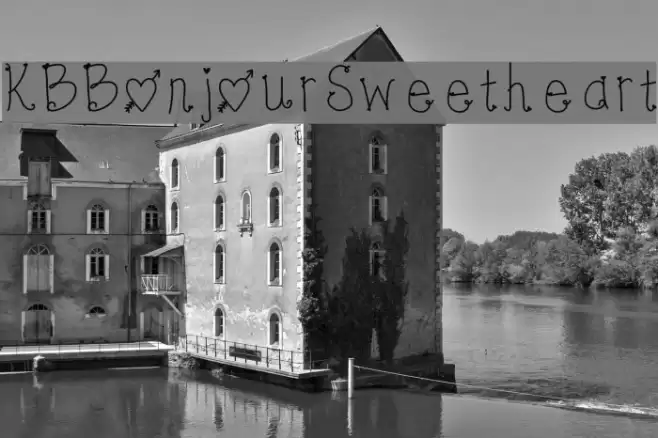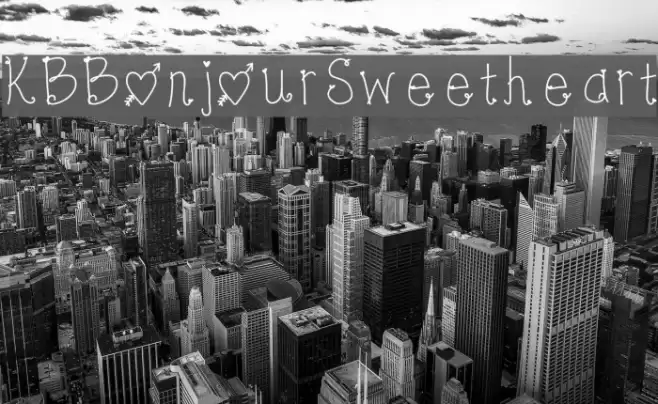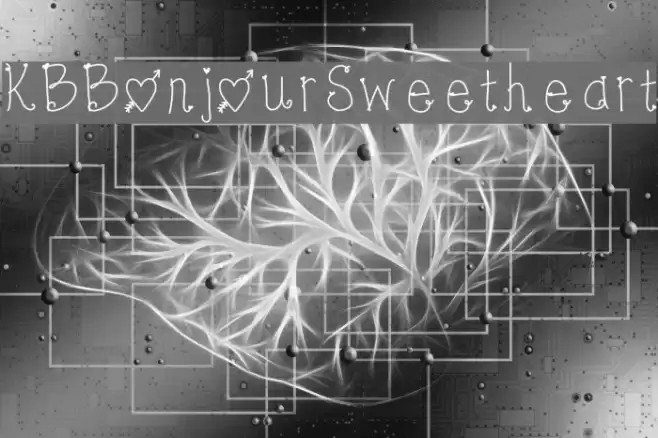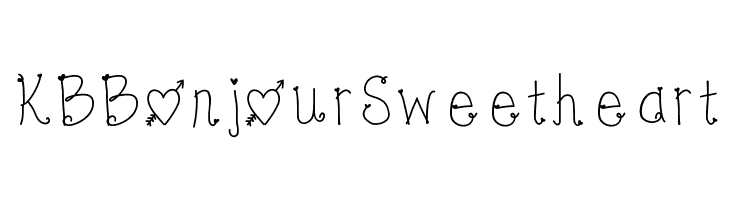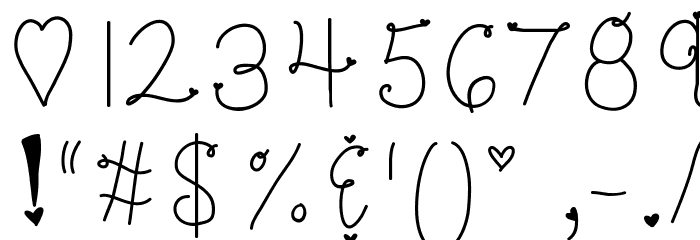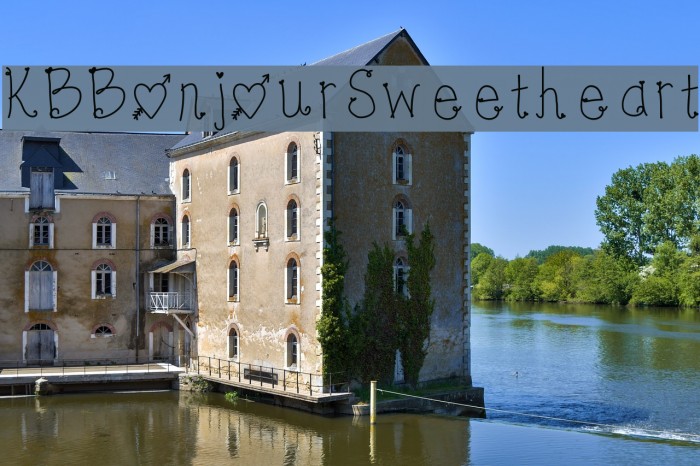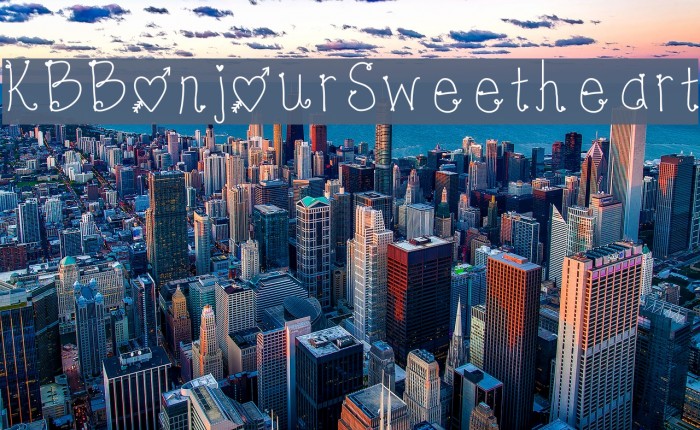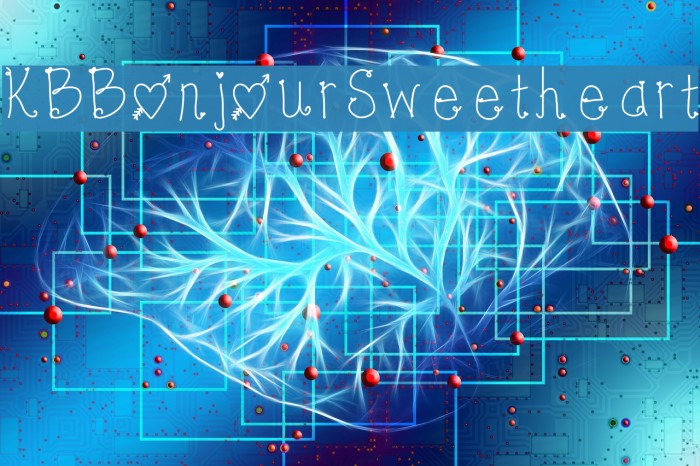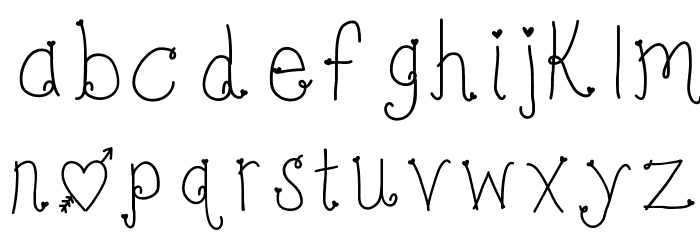
KBBonjourSweetheart Font
KBBonjourSweetheart Description
This whimsical and playful font features a unique, decorative style with heart and arrow motifs integrated into the letterforms. The characters have a hand-drawn, casual appearance, with a slight tilt that adds to their charm. The uppercase and lowercase letters maintain a consistent style, with quirky embellishments that make each character stand out. The numbers and special characters follow the same decorative theme, making this font ideal for projects that require a touch of fun and creativity. The overall design is light-hearted and perfect for conveying a sense of joy and affection.
A whimsical, decorative font with heart and arrow motifs, perfect for playful designs from Uncategorized fonts.
- Proposed Projects: Ideal for greeting cards, wedding invitations, children's books, and playful branding projects.
- Overall Style: Playful, Decorative
- Use Case: Headlines, Logos, Invitations